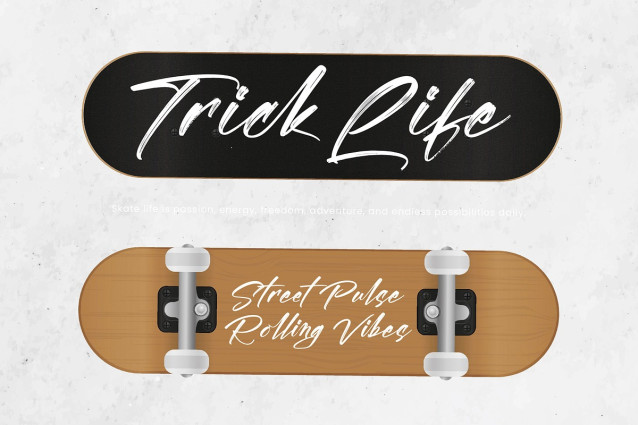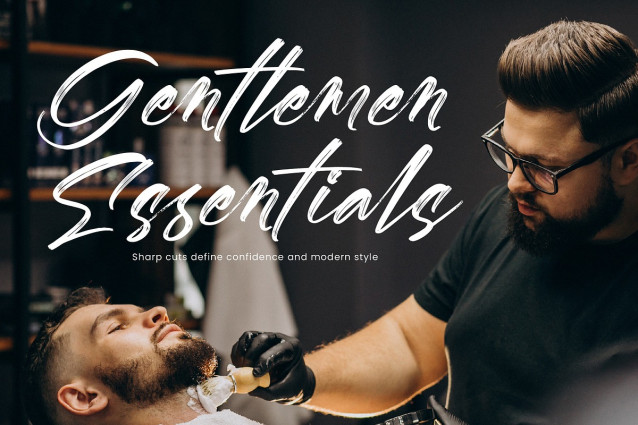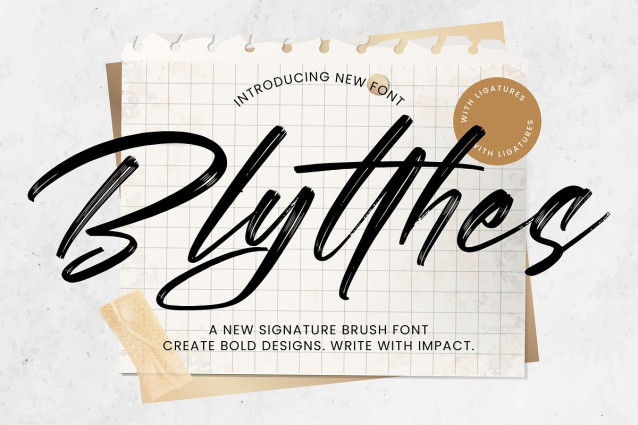
Blytthes Font
Blytthes Font – A New Signature Brush Font Create Bold Design Write With Impact, from Operatype, perfect for any project like: logos, branding projects, homewares designs, product packaging, mugs, quotes, posters, shopping bags, t-shirts, covers books, business cards, invitation cards, greeting cards, labels, photography, watermarks, special events and all your other luxury projects that require a premium taste.